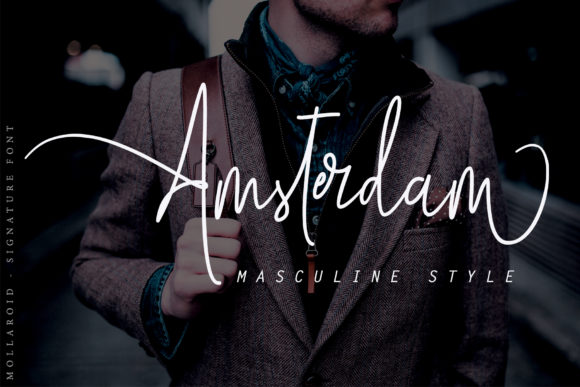
Introduction to Mollaroid Font
Have you ever found yourself rummaging through your sketchbook, searching for that perfect pen stroke to bring your creative project to life? As designers, we’re always on the lookout for that special something that sets our work apart from the rest. And, let’s be honest, it’s not just about the tools we use, but the fonts we choose that can make all the difference.
Enter the Mollaroid Font, a clean, yet authentic handwritten font that adds a charming touch to any design project. With its light feel and high-quality design, this font is a must-have for any creative enthusiast looking to elevate their work.
Not only is the Mollaroid Font a valuable resource for designers, but it’s also free to download and comes with a transparent background, making it easy to integrate into your design. Whether you’re working on a logo, poster, or social media graphic, the Mollaroid Font is sure to bring a touch of elegance and sophistication to your work.
Key Features of Mollaroid Font
- High-quality font designed for creative projects, perfect for adding a unique touch to your designs.
- Includes a transparent background, allowing for easy customization and seamless integration with your design.
- Unique characteristics: Includes a wide range of glyphs and characters, making it perfect for multilingual designs and creative projects.
Honest Review: Mollaroid Font
I recently had the chance to work with the Mollaroid Font for a creative project, and I must say, it was a great experience. The font is a high-quality, free download that can add a unique touch to any design.
What works well: ✨ The Mollaroid Font has a transparent background, making it easy to use on any design without worrying about background elements getting in the way. The font also has a versatile design that can be used for a wide range of creative projects, from logos to typography-based designs.
What doesn’t work well: ⚠️ One of the limitations of the Mollaroid Font is that it may not be suitable for all design types. The font is more suited for modern and creative projects, and may not be the best choice for traditional or formal designs.
Here are some key features of the Mollaroid Font:
- Suitable for creative projects
- Can be used for logos, typography-based designs, and more
Overall, I’m very impressed with the Mollaroid Font. It’s a valuable design resource that can add a unique touch to any creative project. I would definitely recommend it to designers looking for a high-quality, free font.
Tips for Getting the Most Out of Mollaroid Font
Experiment with different font combinations and sizes to achieve a unique look. Use the Mollaroid Font as a design resource to add a professional touch to your projects.
Mollaroid Font is ideal for various design projects, including business cards, brochures, and social media graphics. Its high quality and versatility make it a valuable design resource for any creative project.
Q: Is the Mollaroid Font optimized for high-resolution displays?
Yes, the Mollaroid Font is designed to be highly legible on high-resolution displays, including Retina and 4K screens. The font’s crisp, clean design ensures that it looks great on a wide range of devices, from smartphones to large-format displays.